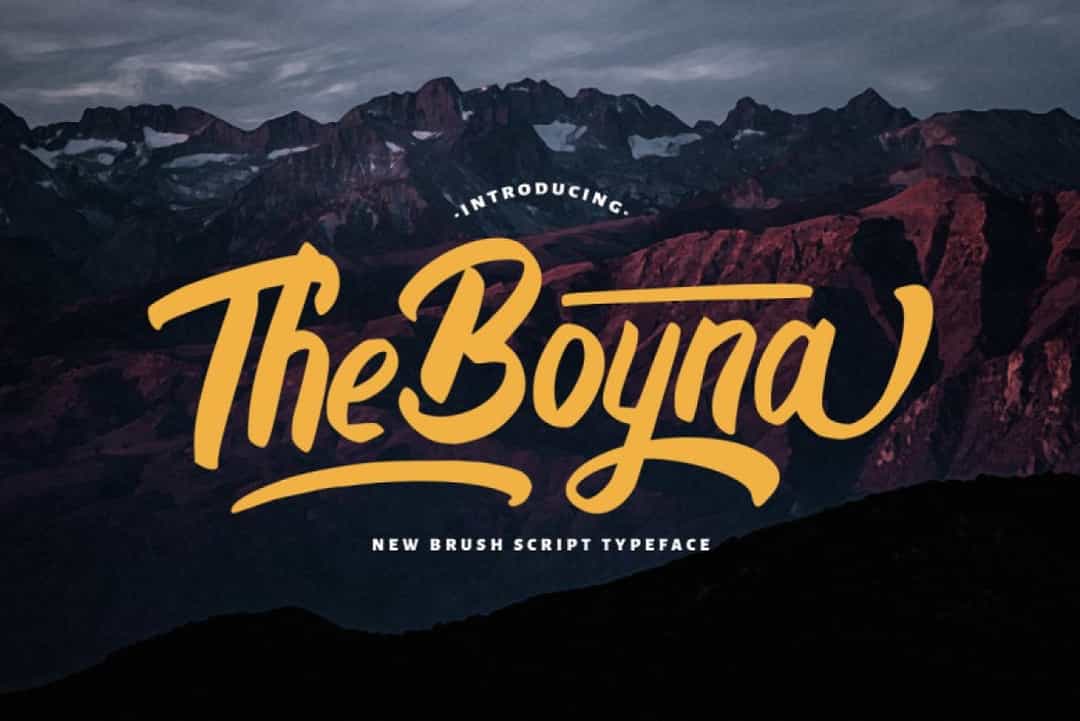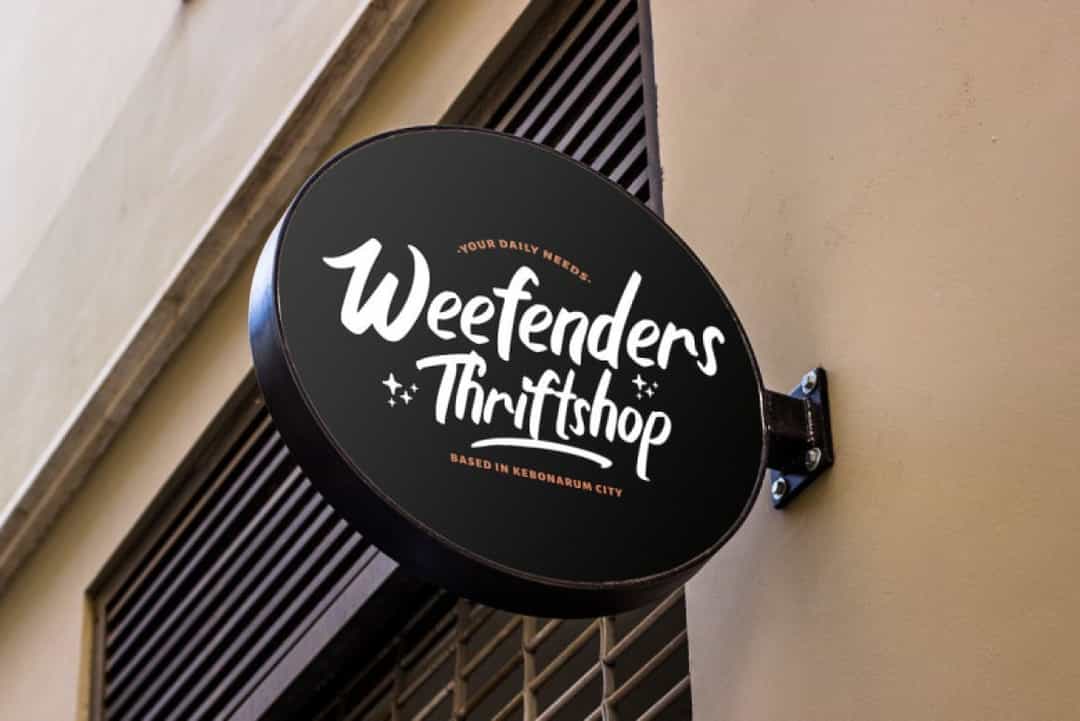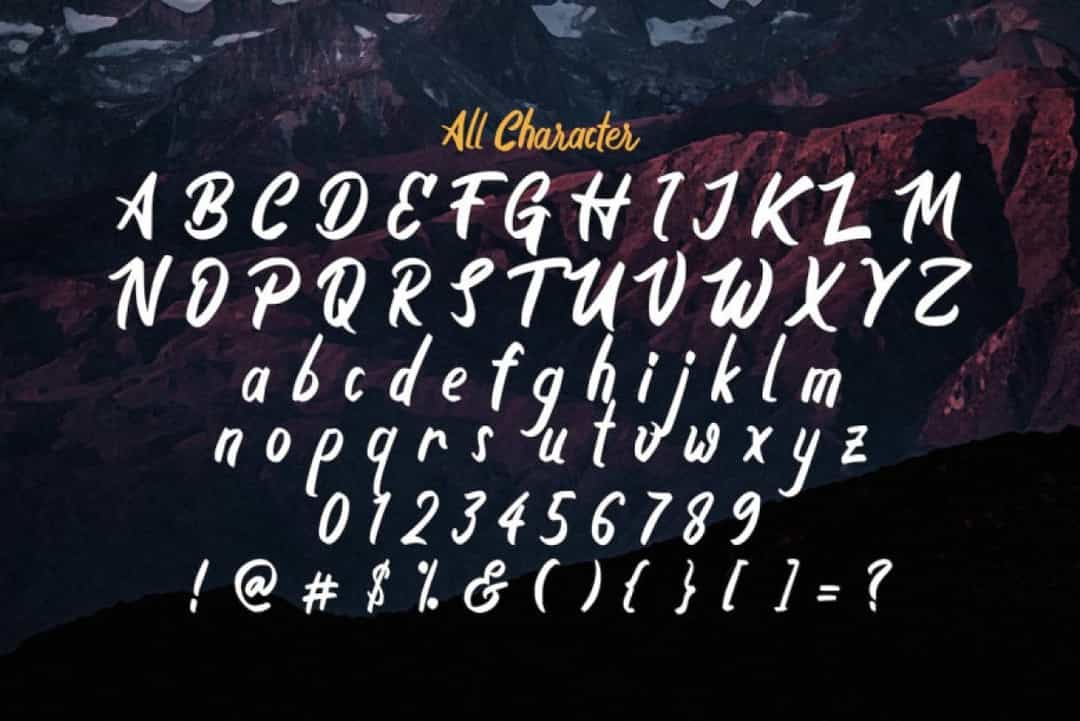
Discover Boyna Font, part of the Brush collection—a versatile and unique font perfect for adding a personal touch to your projects. Download it for free and enjoy crafting designs with style, from invitations to social media posts. This font is available exclusively for personal use, giving you the freedom to create without limits. Unlock your creativity with Boyna Font today!
Boyna is an eye-catching brush script font. Curved and round in design, its unique style makes it the ideal choice for branding purposes. See how it breathes life into even your wildest ideas!